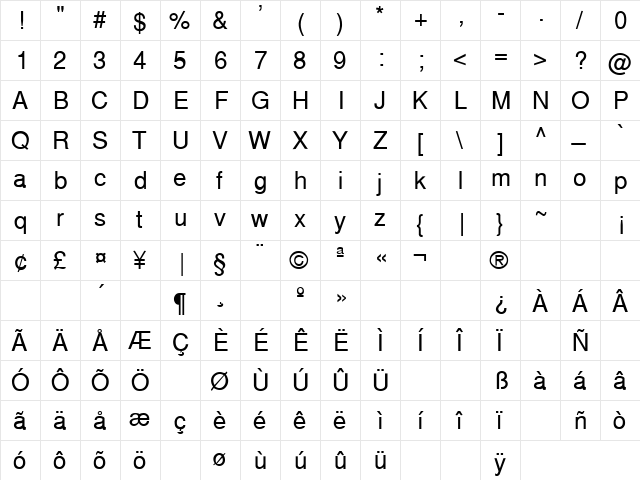
Communication 21 Regular Font Preview
Communication 21 Regular
Communication 21 Regular Font Details
Design Context for Communication 21 Typeface
Communication 21 is a composed and adaptable typeface that performs quietly and consistently across a wide range of design contexts.